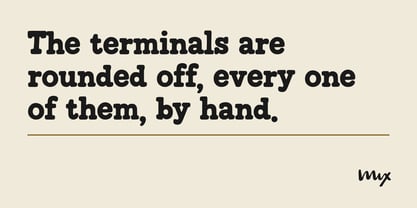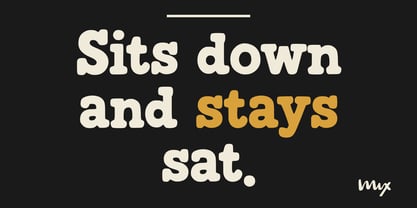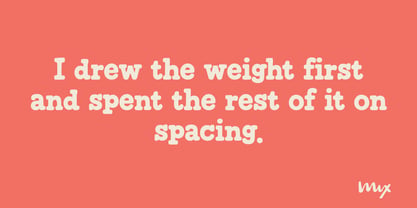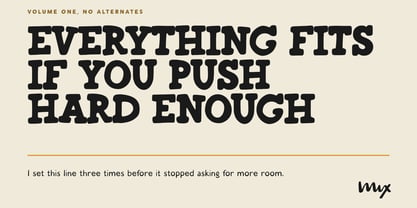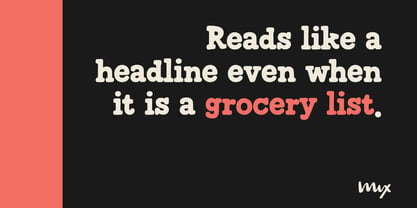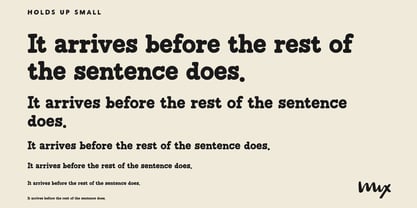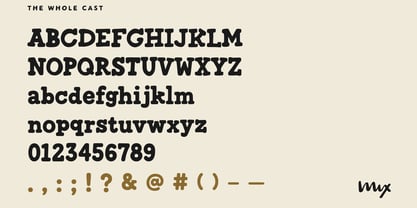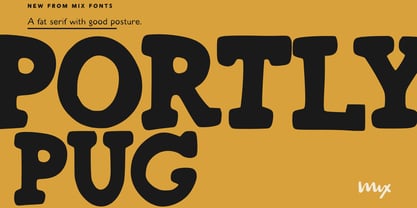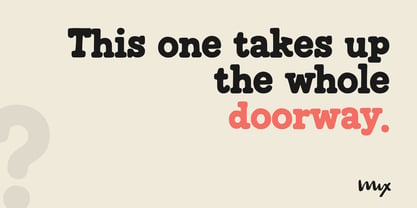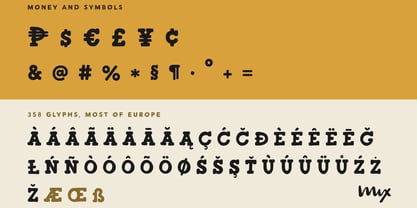
Portly Pug
The Portly Pug Font Family was designed by Mikko Sumulong and published by Mix Fonts. Portly Pug contains 1 styles. More about this family
Mix Portly Pug is a bold slab serif that rounded off every corner on the way in.
It started as a meager first attempt at a heavy slab, which is a generous way of saying the first version was not good. The weight was there and nothing else was. It came right once I stopped trying to make the corners sharp and rounded every one of them instead.
Now it takes up the whole doorway and is perfectly polite about it. The letters sit flat on the baseline like they have no plans to move, and they will carry a jam label or a market stall sign on their own. It stays readable far smaller than something this heavy has any right to be.